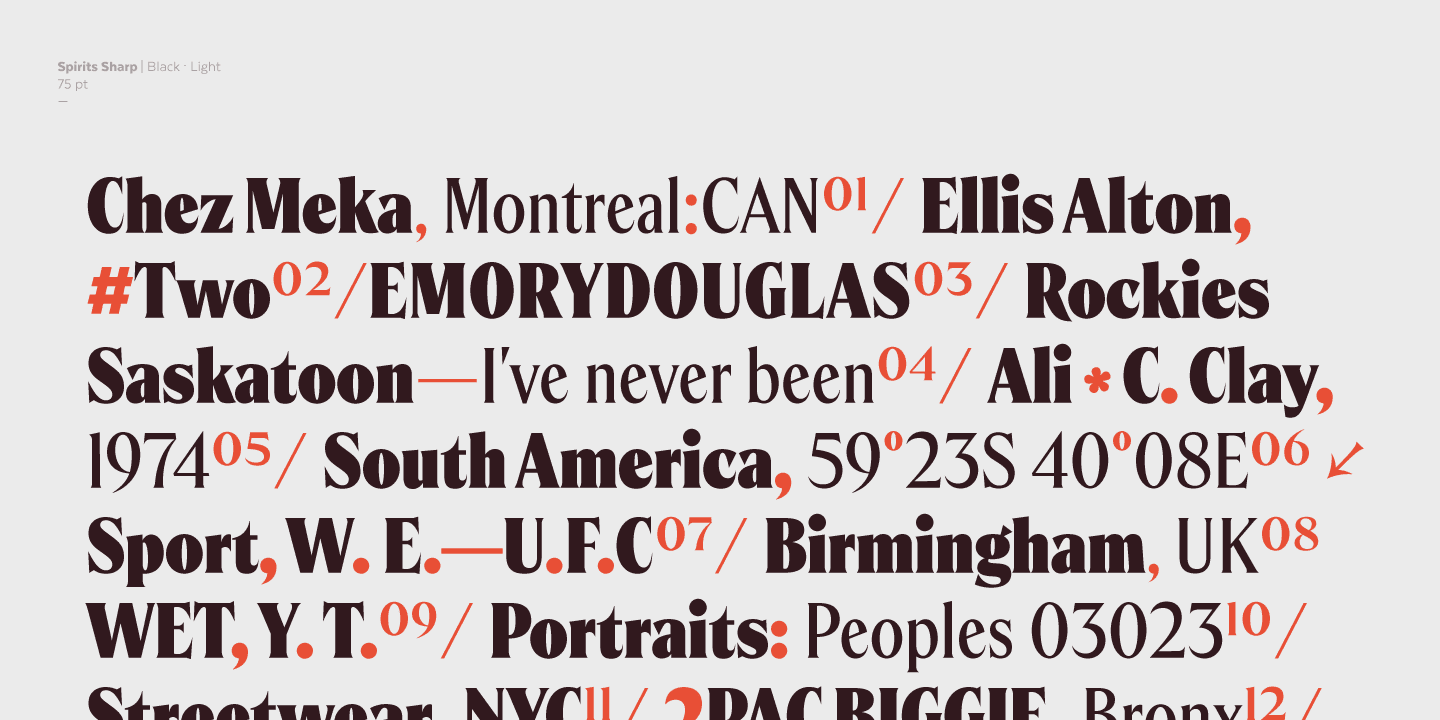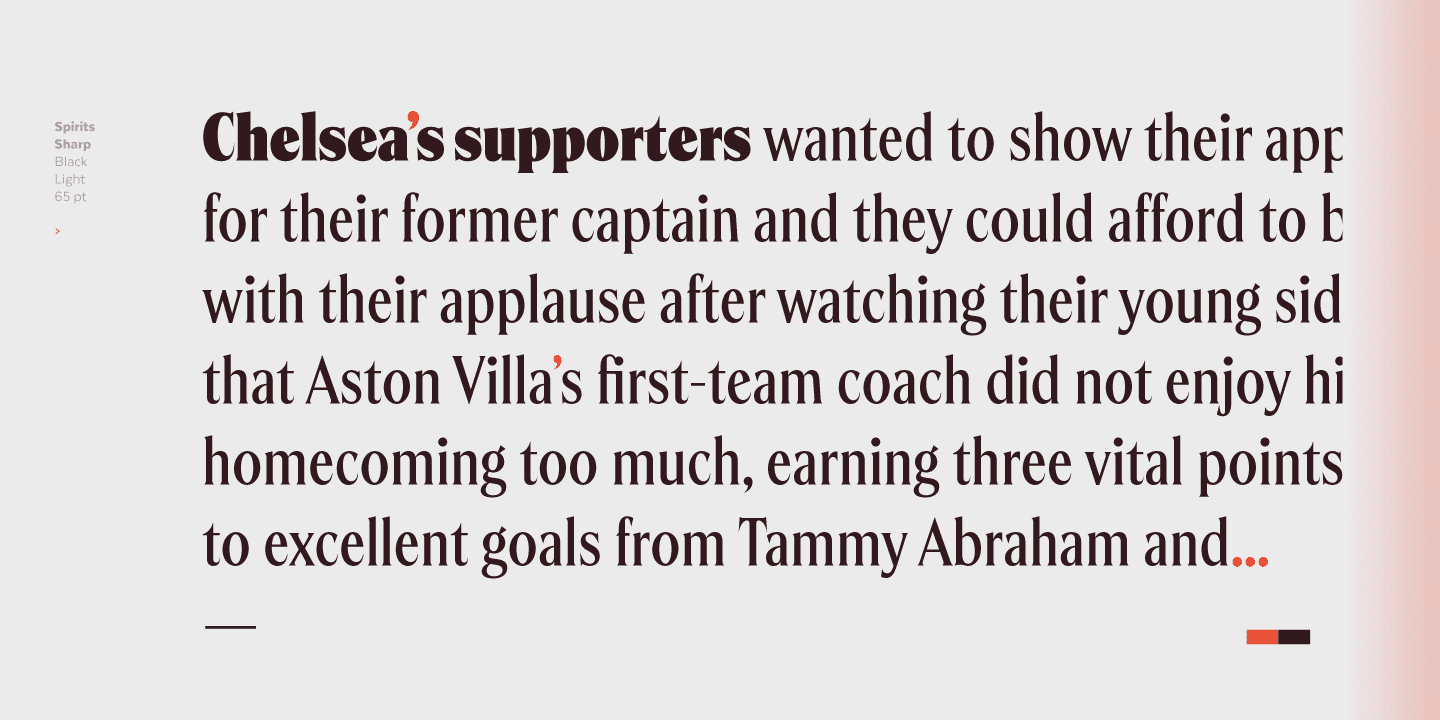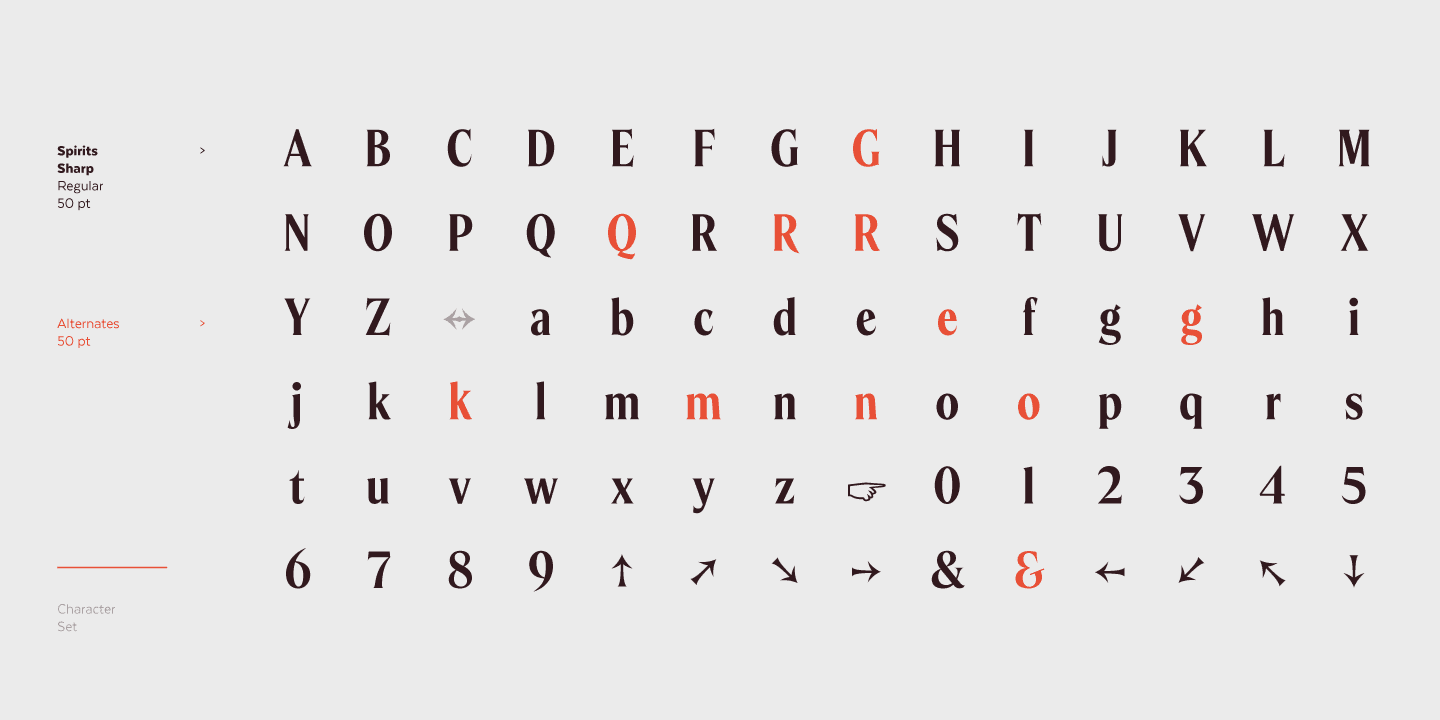
Condensed proportions and large x-height, features found in the original font, make Spirits ideally suited for headlines and branding design.
As you would expect from Latinotype, this font comes with a standard character set that supports over 200 languages. Each version includes its own alternates and comes in 4 weights, ranging from Light to Black, resulting in a total of 12 font styles.